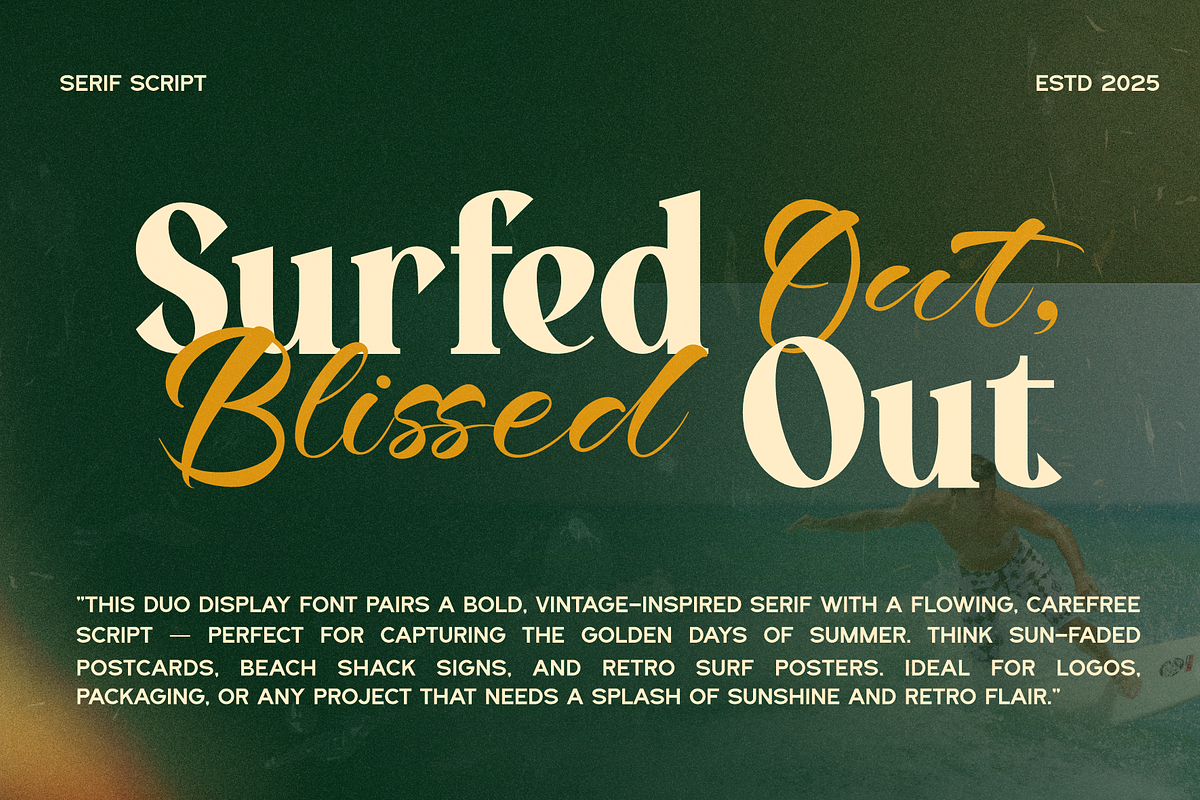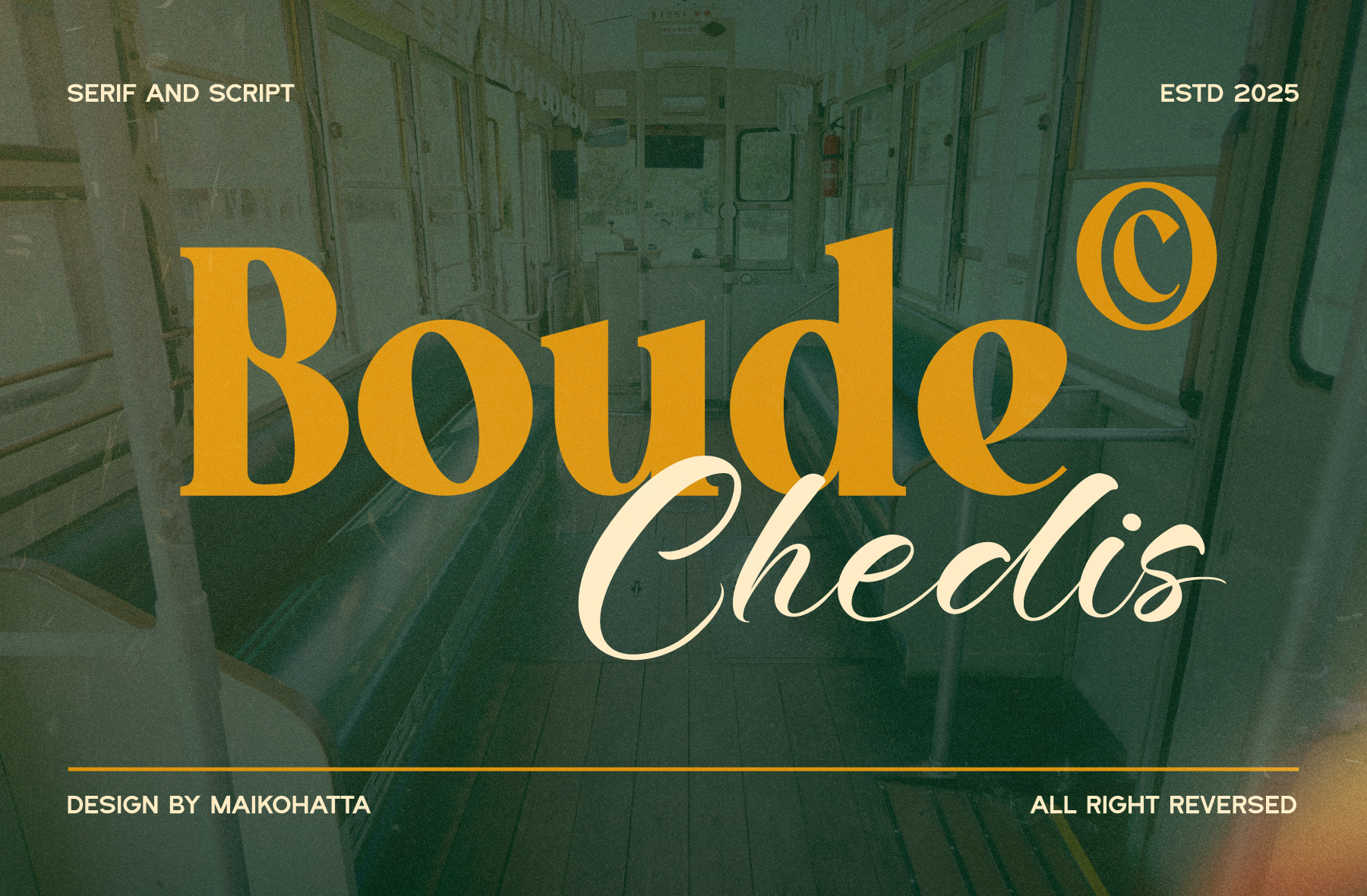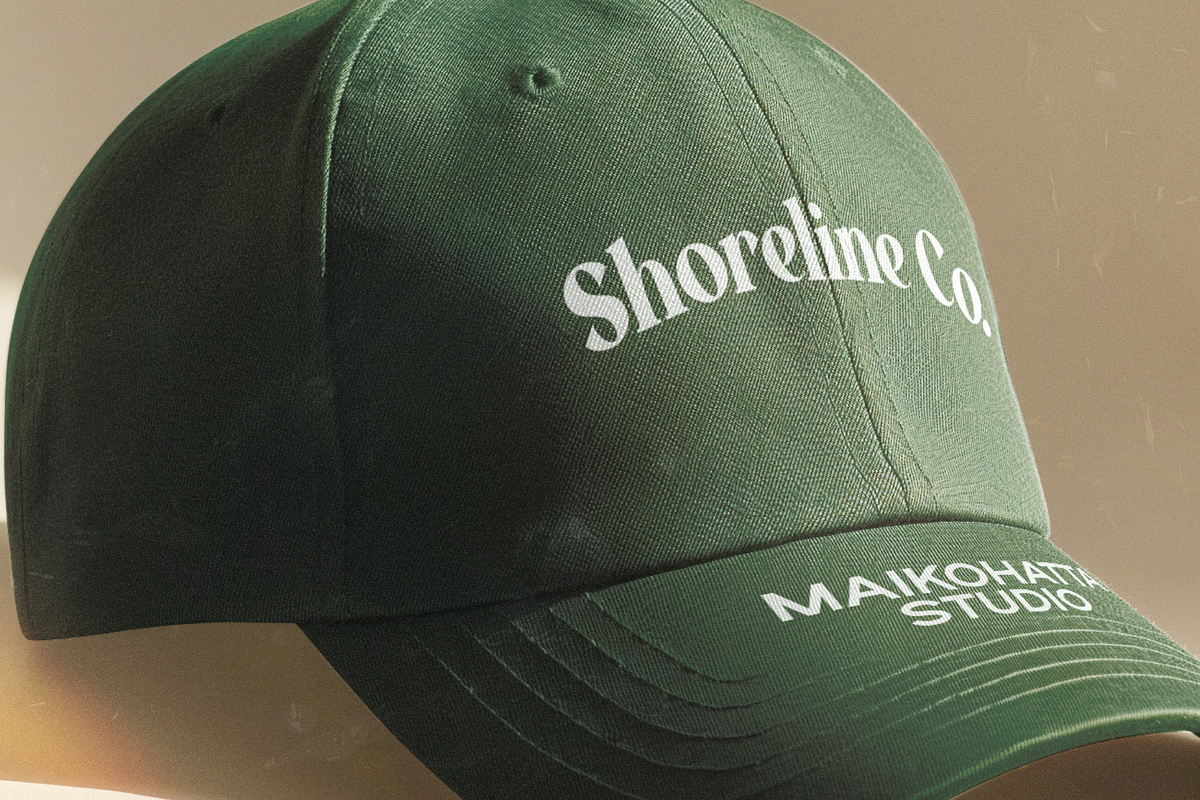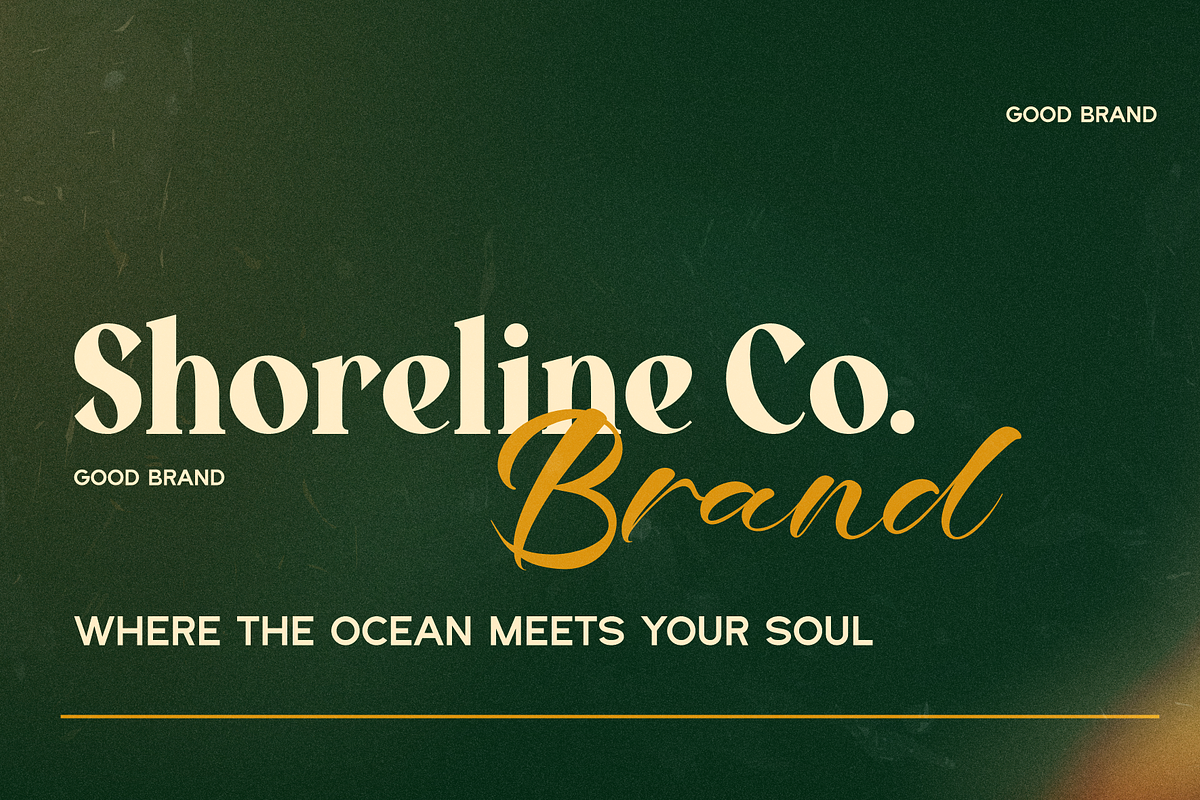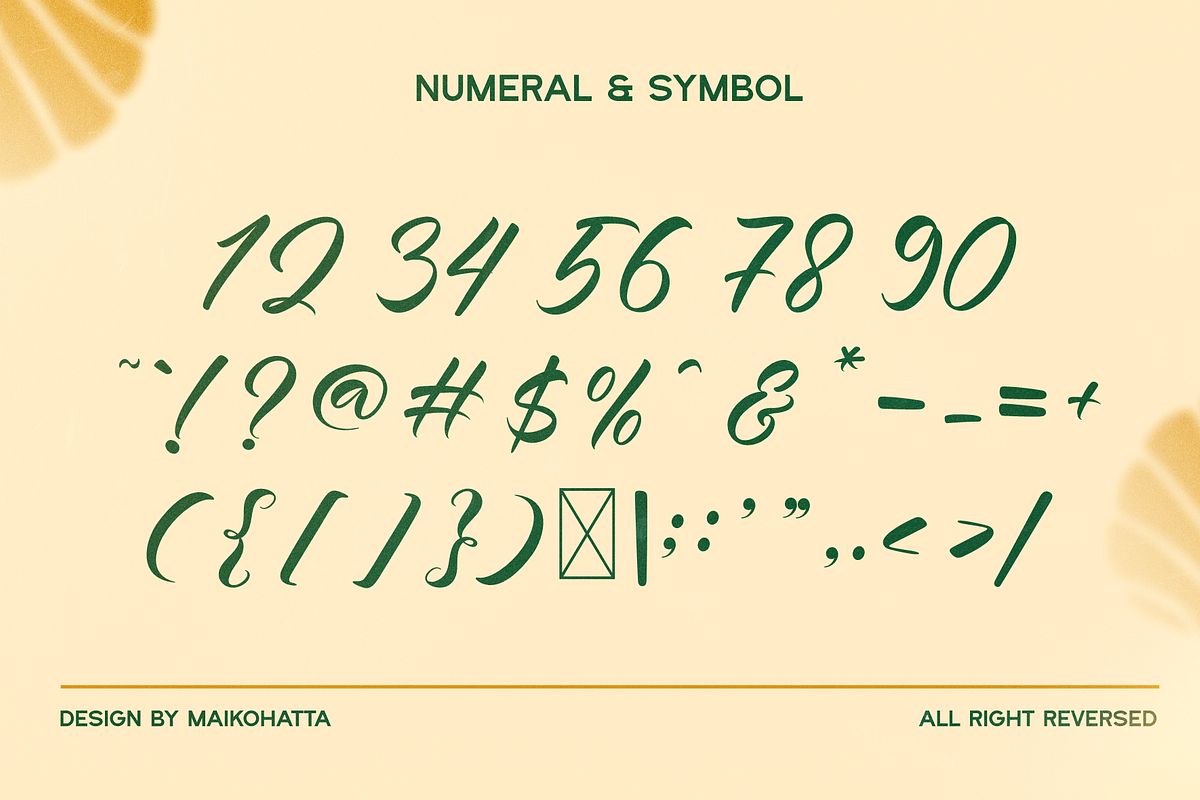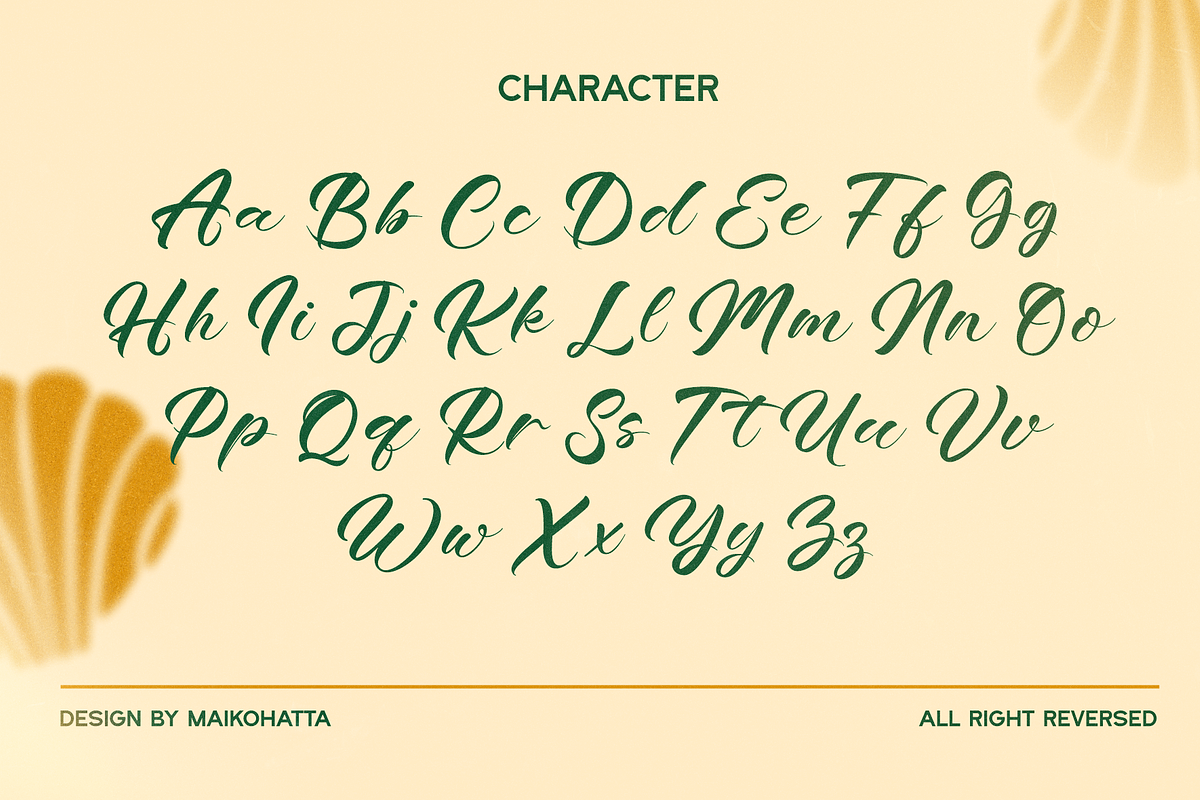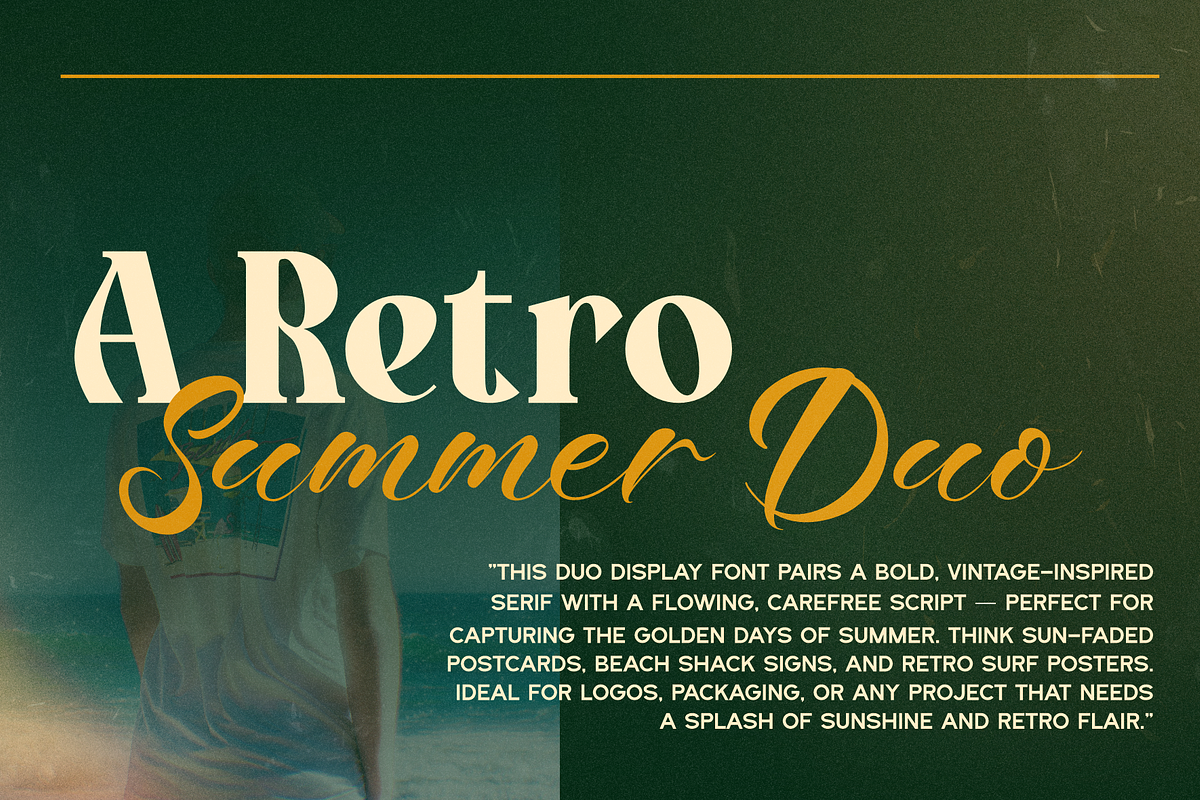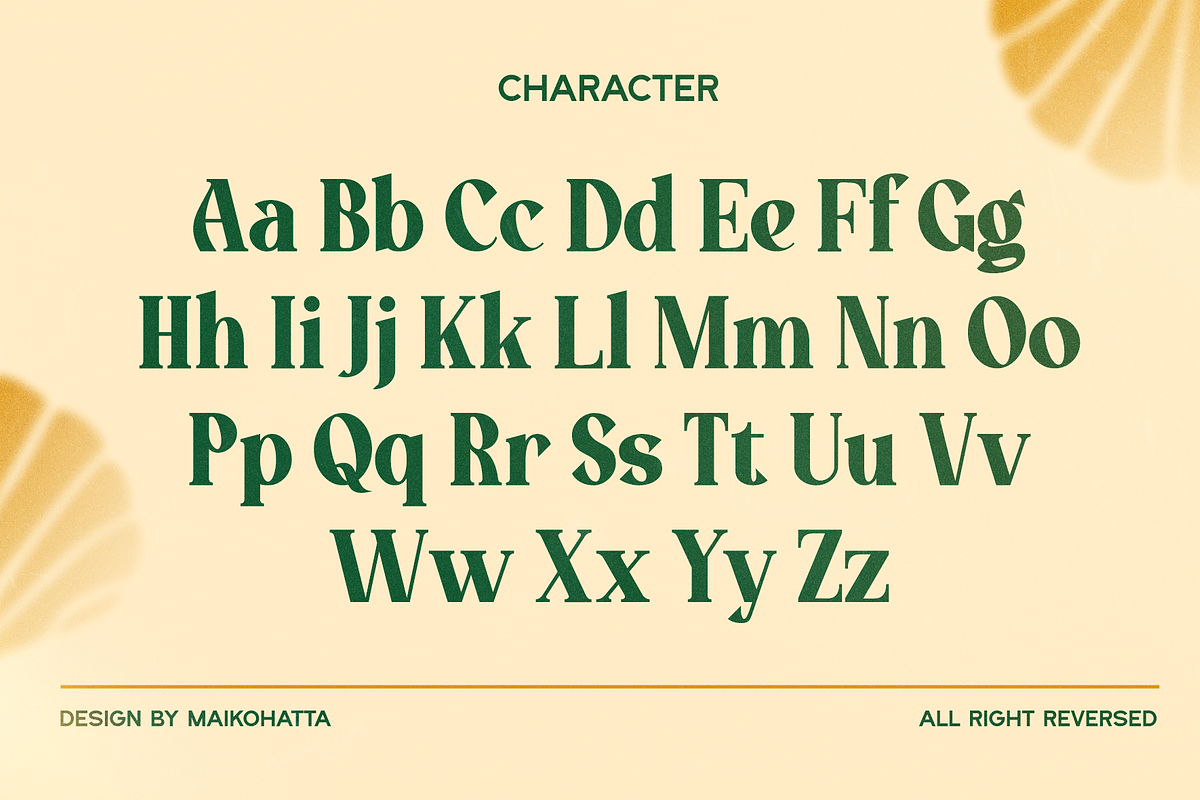
Boude Chedis - Font Duo Typeface
Introducing New Typeface Boude Chedis is a versatile and unique typeface that comes in two distinct styles: serif and Script. Each style brings its own flavor and character, catering to various design needs and preferences.
Boude Serif
A contemporary serif with high contrast, sharp details, and classic charm. Ideal for headlines, logos, and refined branding.
Chedis Script
A smooth, flowing script with natural ligatures and an authentic handwritten feel. Perfect for names, taglines, and elegant accents.
In summary, Boude Chedis offers a perfect balance between Classic and handcrafted charm through its two styles, Serif and Script. The Serif style brings a contemporary, bold clean, while the Script style offers a beautiful, handwritten appeal.